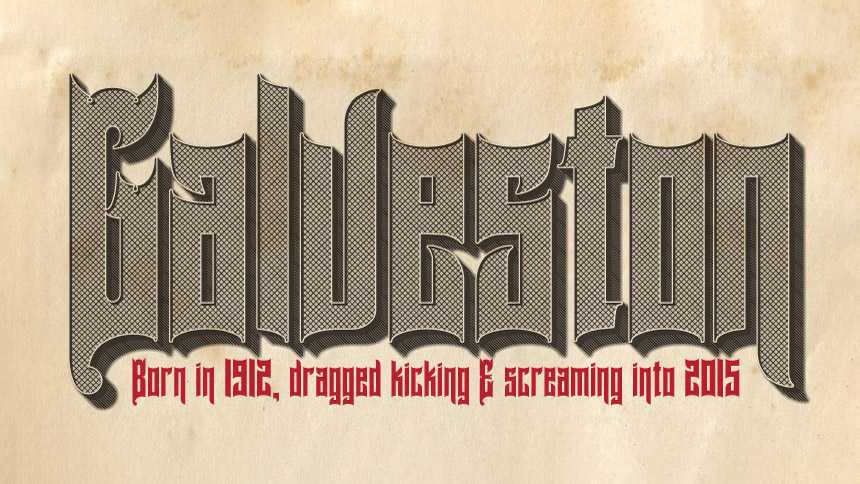
Download Galveston font, a fancy vintage typeface derived from a Sanborn Insurance Map cover published in 1912 for the city of Galveston, Texas.
Designer: Pilaster Davy